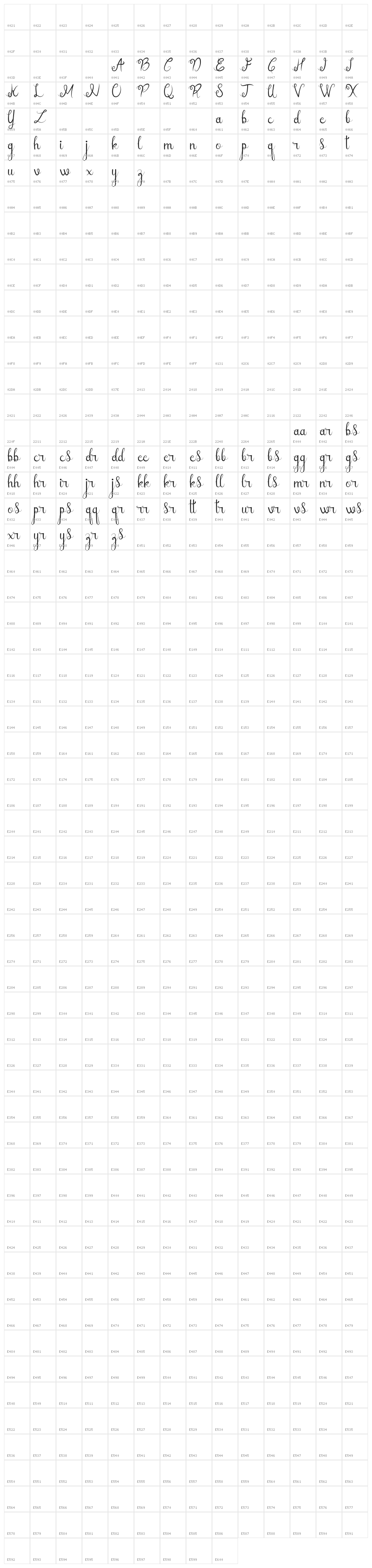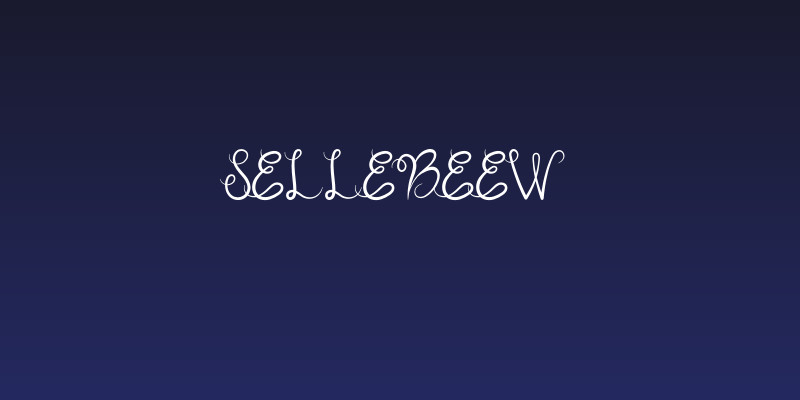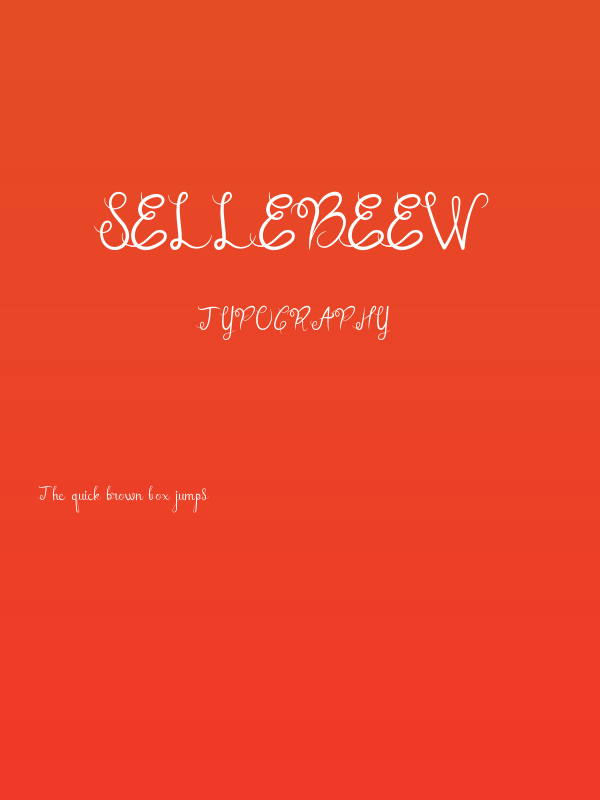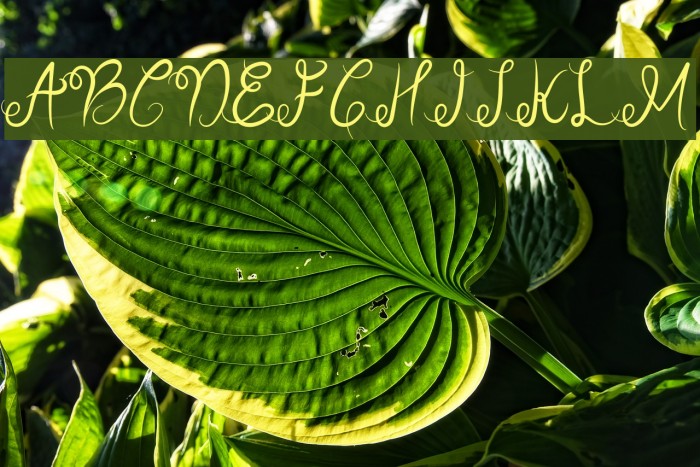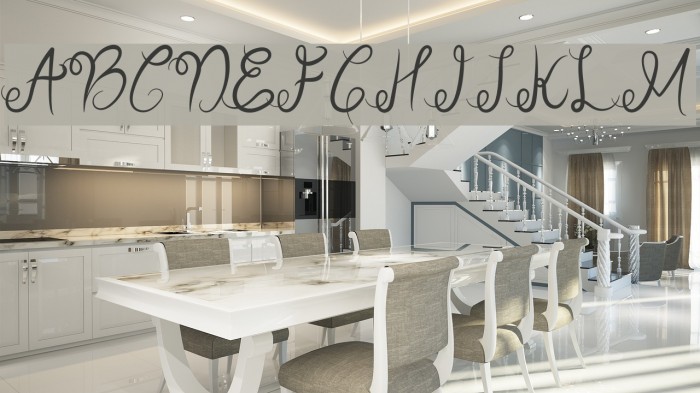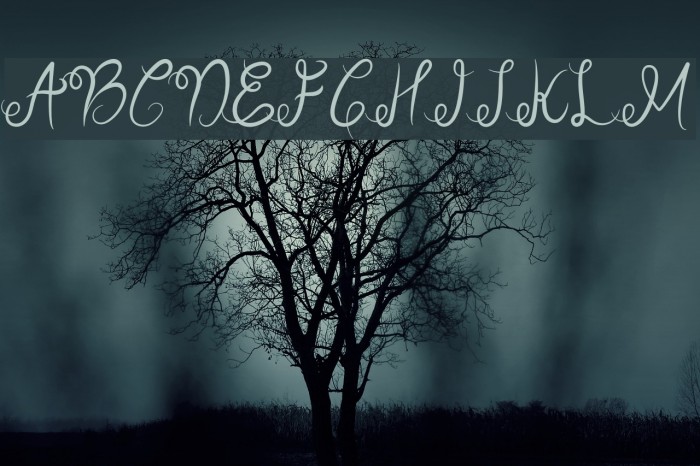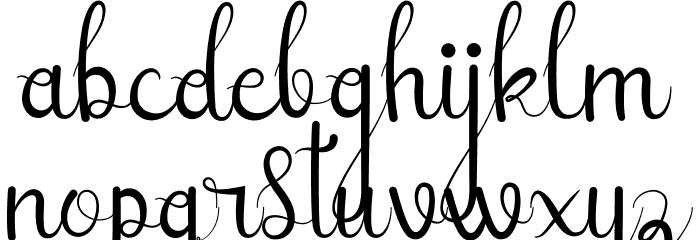
Sellebeew Font
Sellebeew Description
This font features an elegant and flowing script style, characterized by its intricate loops and swirls. The uppercase letters are particularly ornate, with extended flourishes that give a sense of sophistication and grace. The lowercase letters maintain a consistent style, with smooth curves and a slightly playful touch. The overall design is both decorative and legible, making it suitable for a variety of creative projects. The font's unique style is enhanced by its moderate contrast in stroke thickness, adding to its visual appeal.
| Proposed Projects | Ideal for wedding invitations, greeting cards, branding, and decorative headings. |